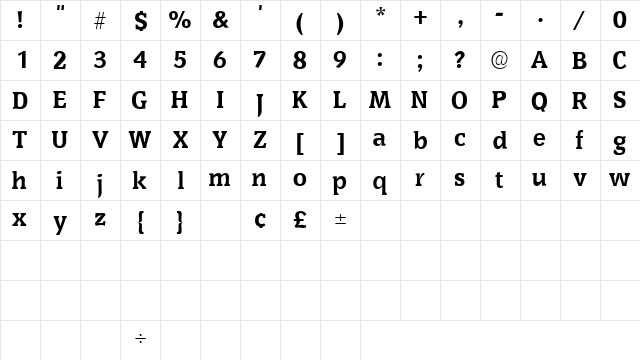
OritSSK Regular Font Preview
OritSSK Regular
OritSSK Regular Font Details
Design Context for OritSSK Typeface
OritSSK is a composed and adaptable typeface that performs quietly and consistently across a wide range of design contexts.